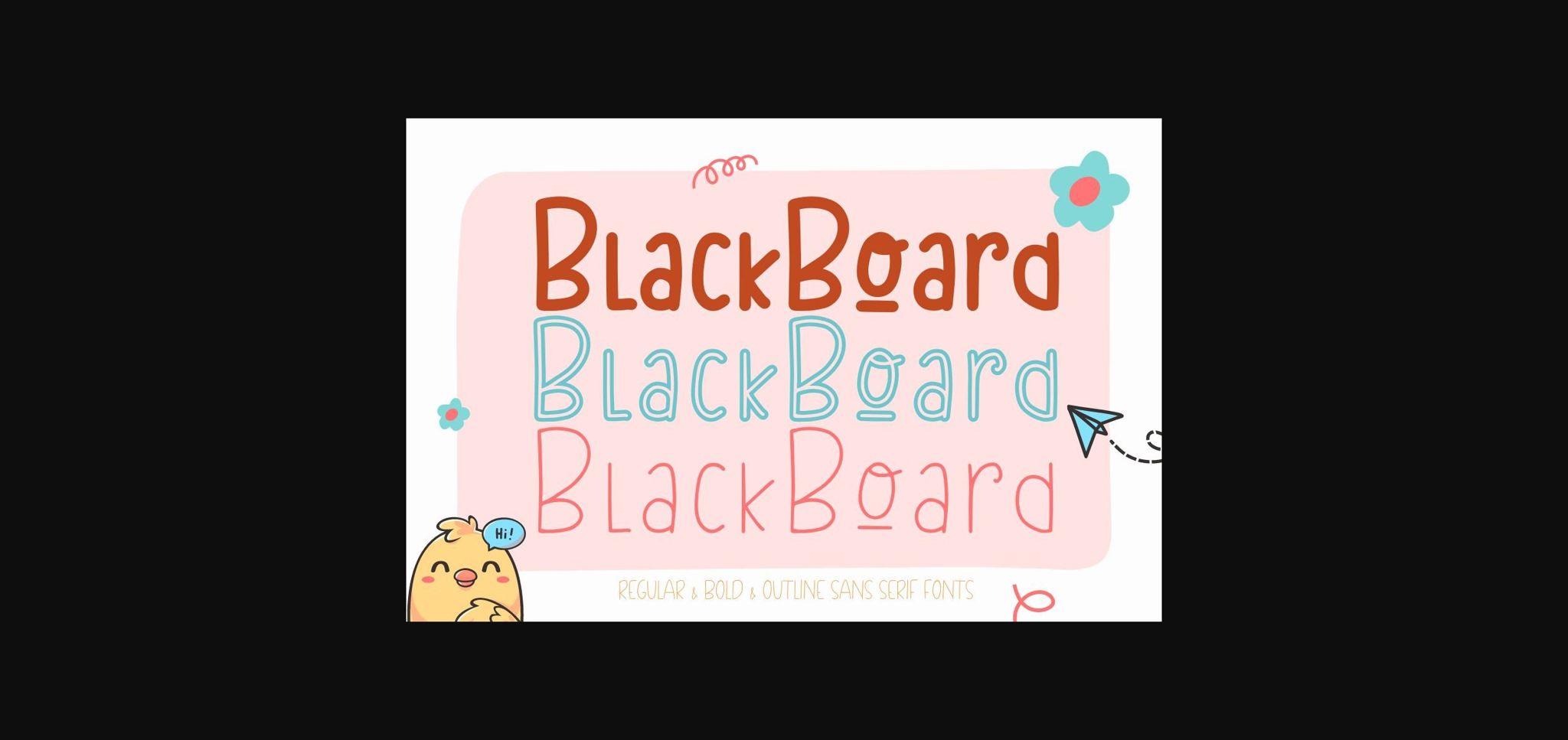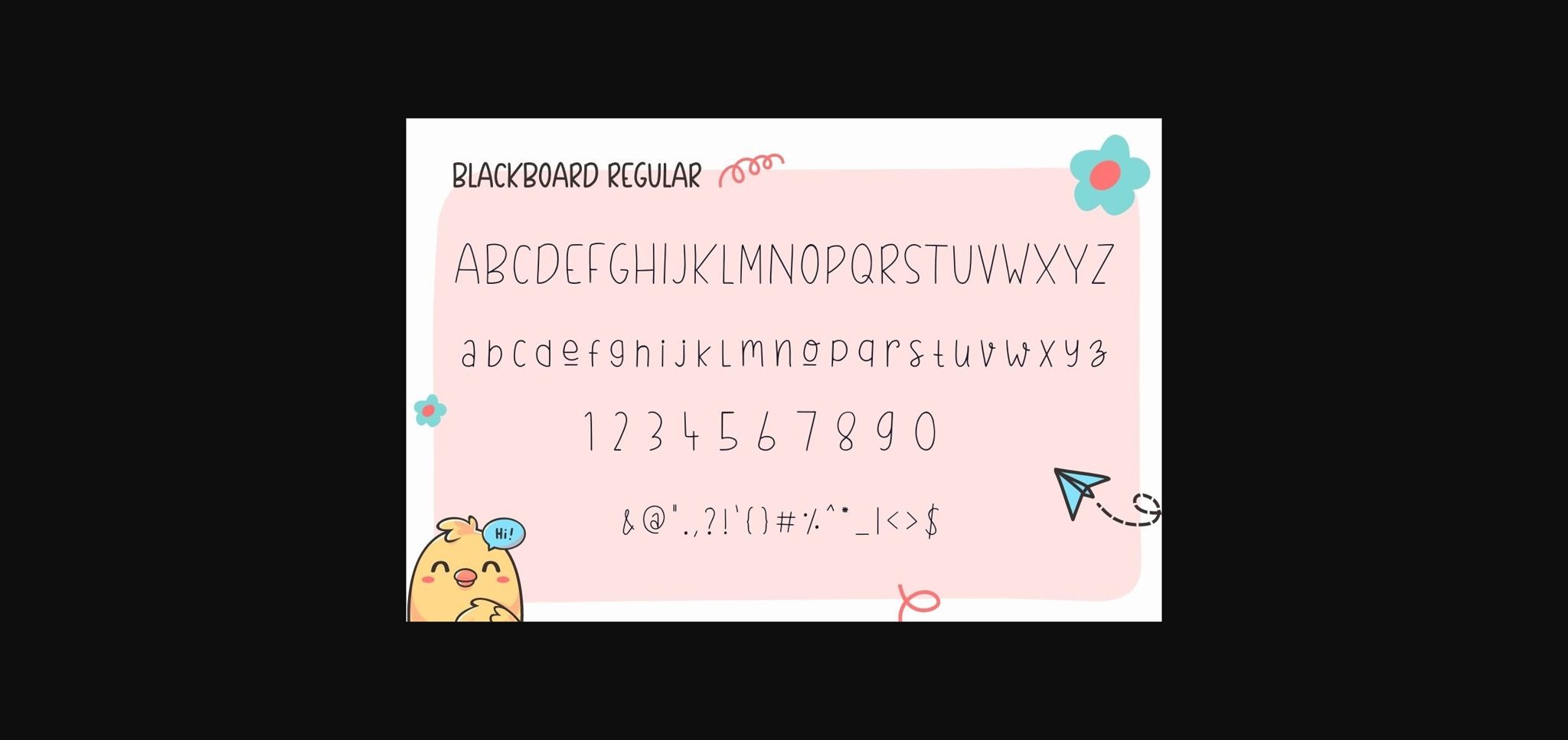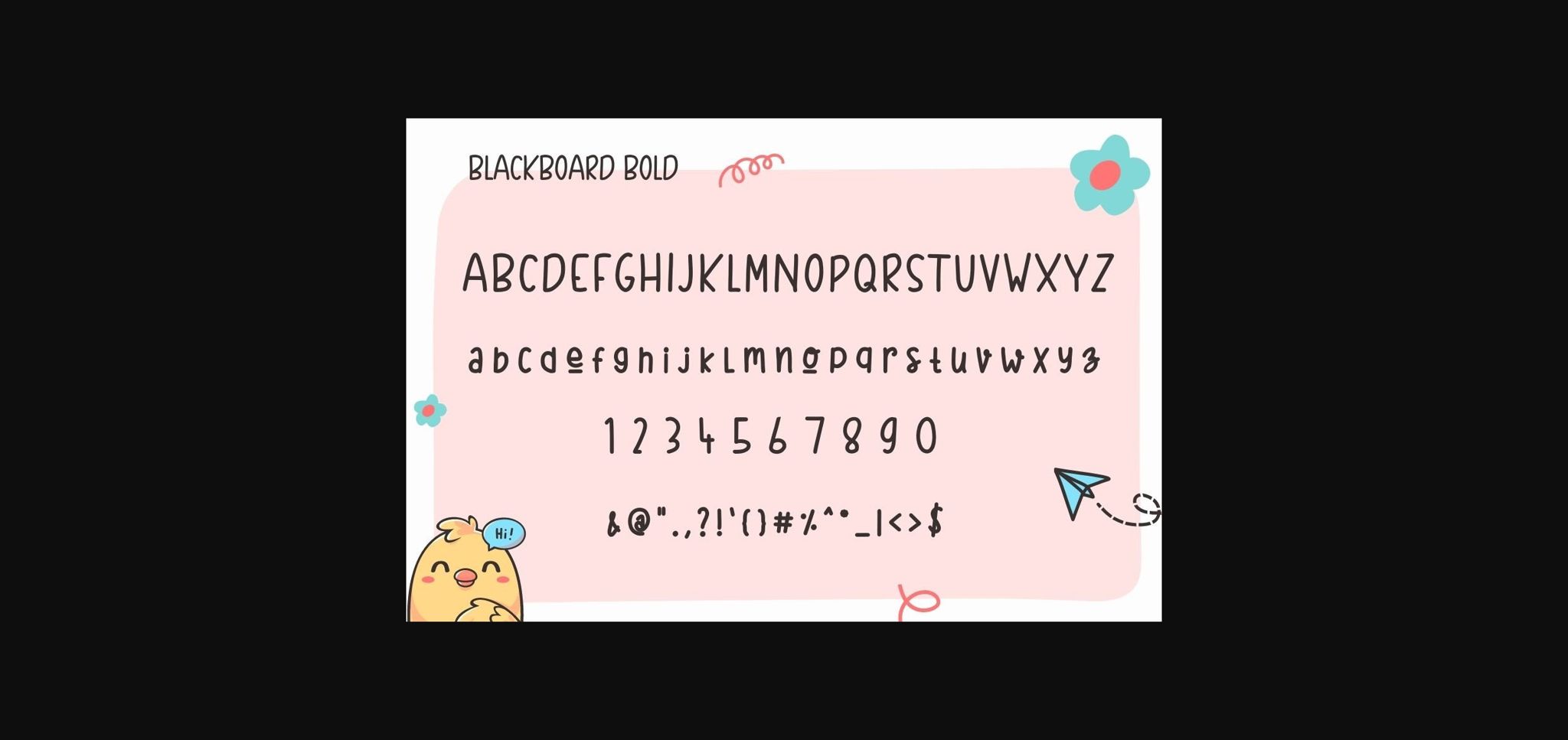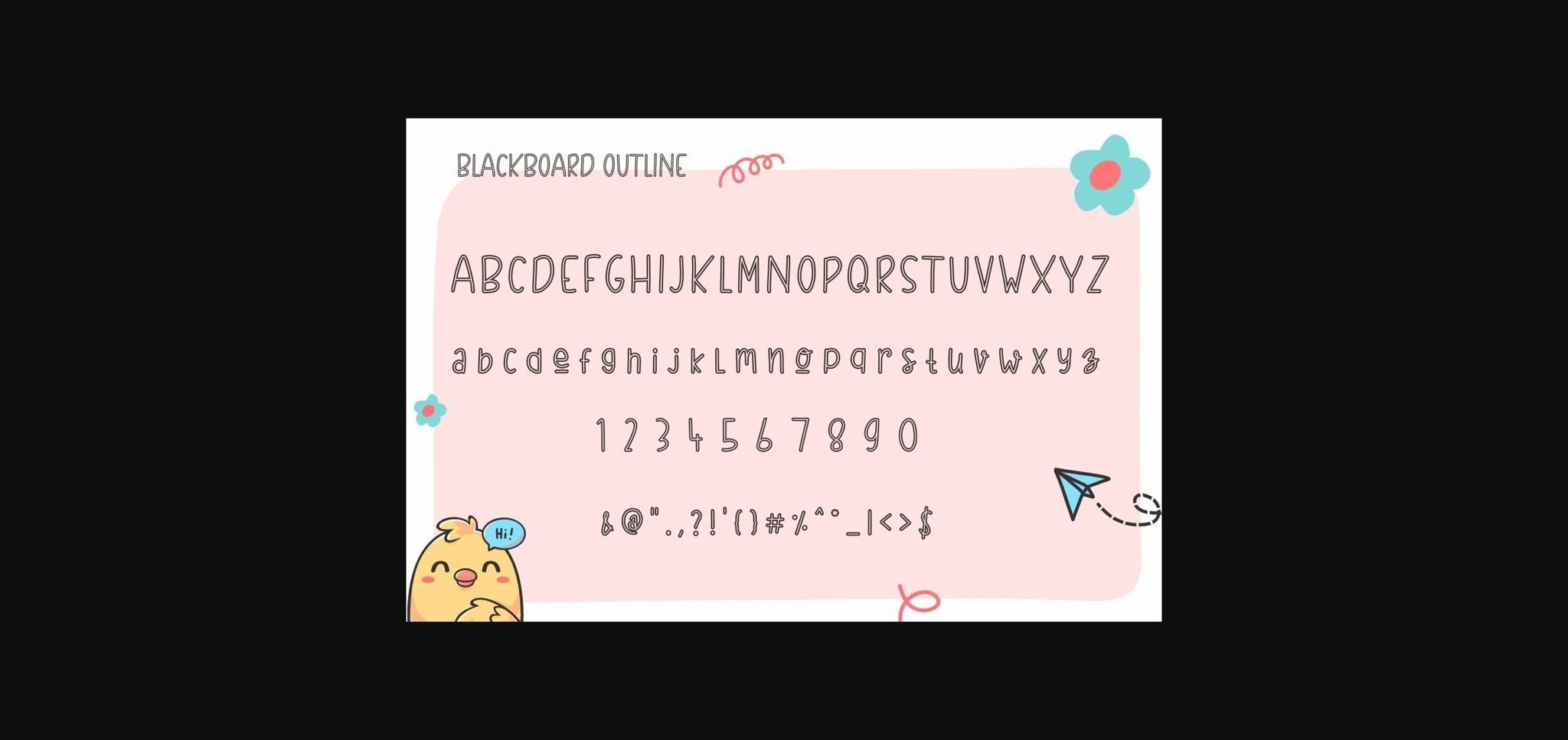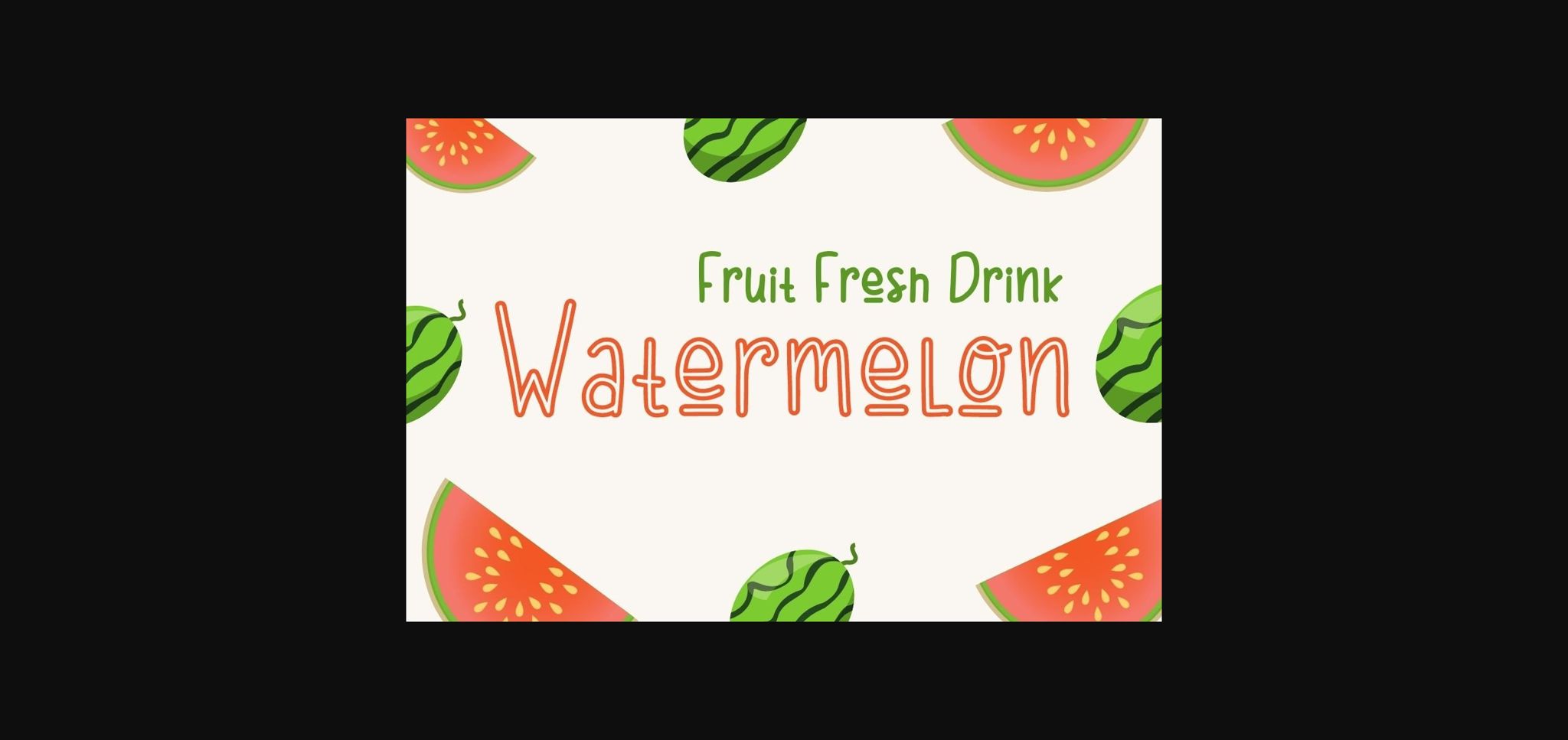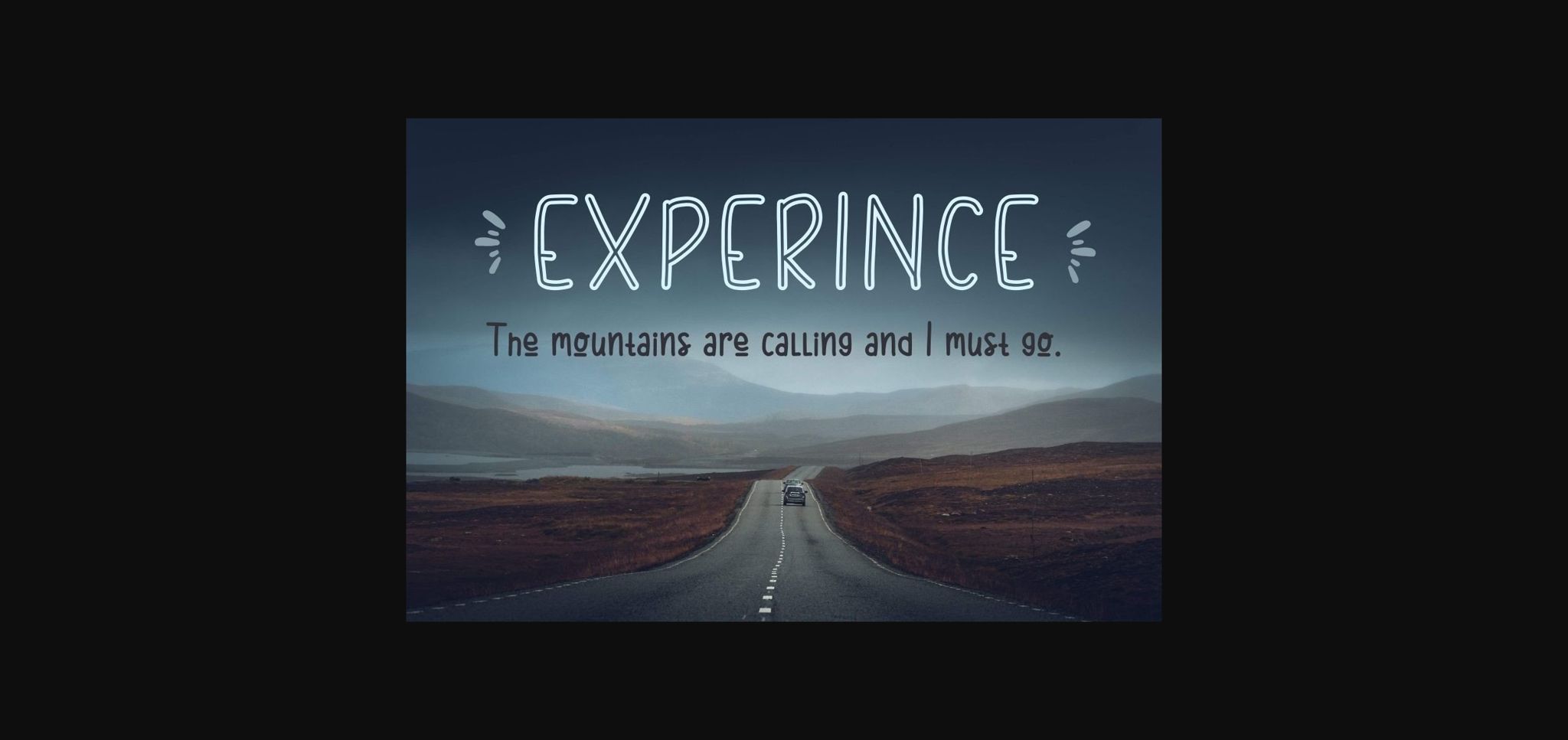
HomeSans Serif FontsBlackboard Font Sans Serif Fonts Blackboard Font FacebookXPinterestWhatsApp 1 of 8 ... Blackboard Font Poster 2... Blackboard Font Poster 3... Blackboard Font Poster 4... Blackboard Font Poster 5... Blackboard Font Poster 6... Blackboard Font Poster 7... Blackboard Font Poster 8... About Blackboard Font Blackboard is a fun and casual sans serif font. With its casual charm, this font is perfect for a wide pool of design ideas. DOWNLOAD NOW People also explored Saturday Holiday Font Piekos FX BB Waffle Font Hockey Font Makio Font Candilight Killuminati Font Pizza Dough Font Belvina Font 280 0 TagsBlackboard Font Previous articleAwendela Beloved FontNext articleBranch Font LEAVE A REPLY Cancel reply Comment: Please enter your comment! Name:* Please enter your name here Email:* You have entered an incorrect email address! Please enter your email address here Website: Save my name, email, and website in this browser for the next time I comment. Personal Use Free Welliana Personal Use Free Read more about this font Droid Personal Use Free Read more about this font Makeba Font Personal Use Free Read more about this font Little Things Duo Personal Use Free Read more about this font BLOG Free vs Paid Fonts: Why Investing in Premium Fonts Is Worth It Free vs Paid Fonts: Why Premium Fonts Are Worth It in 2025 The debate of free vs paid fonts continues in the design world. While... The 10 Best Handwriting Fonts to Add Personality to Your Designs Where to Buy American Fonts Online in 2024 Elegant Wedding Invitation Fonts – Handwritten & Script Fonts